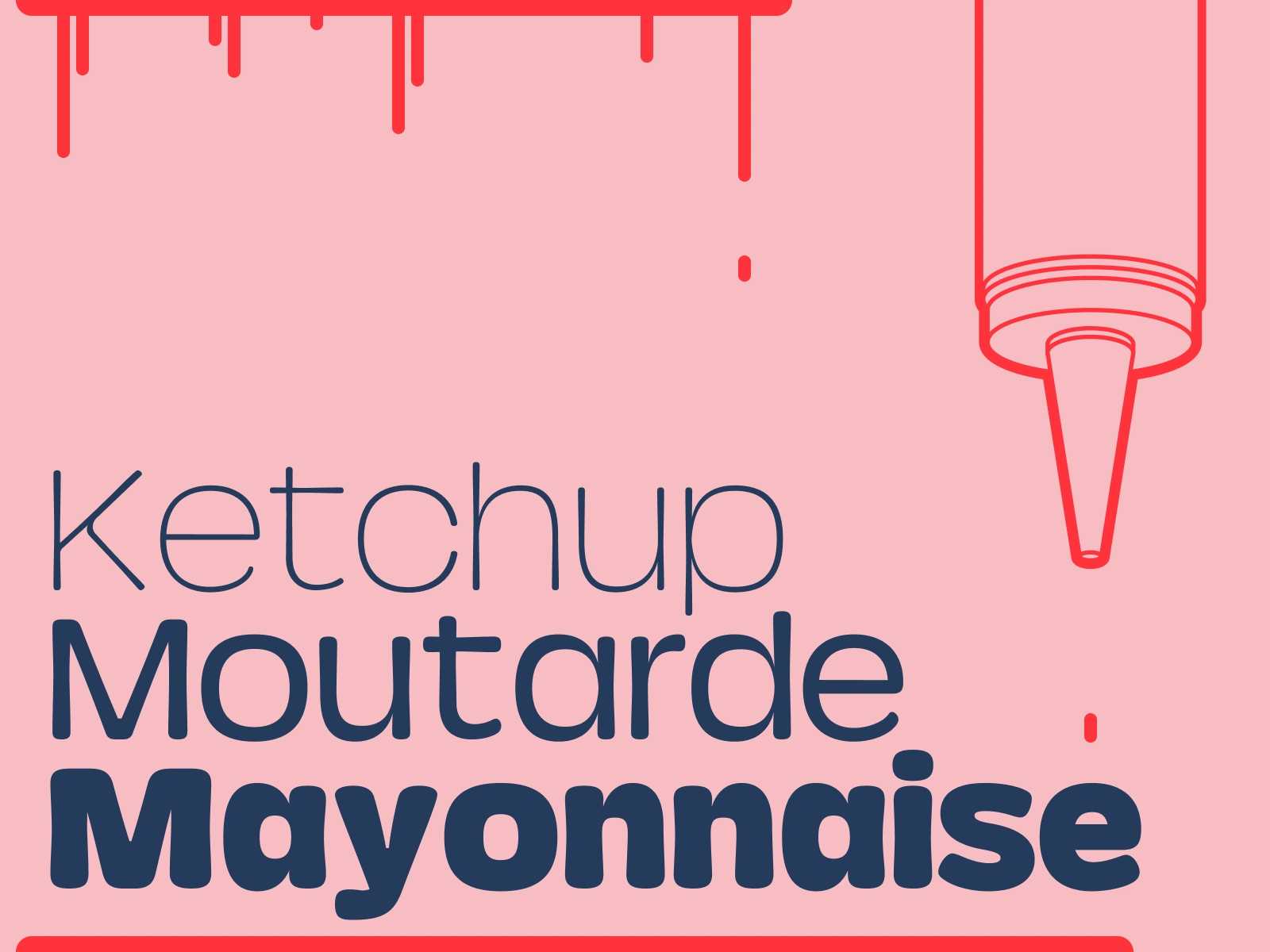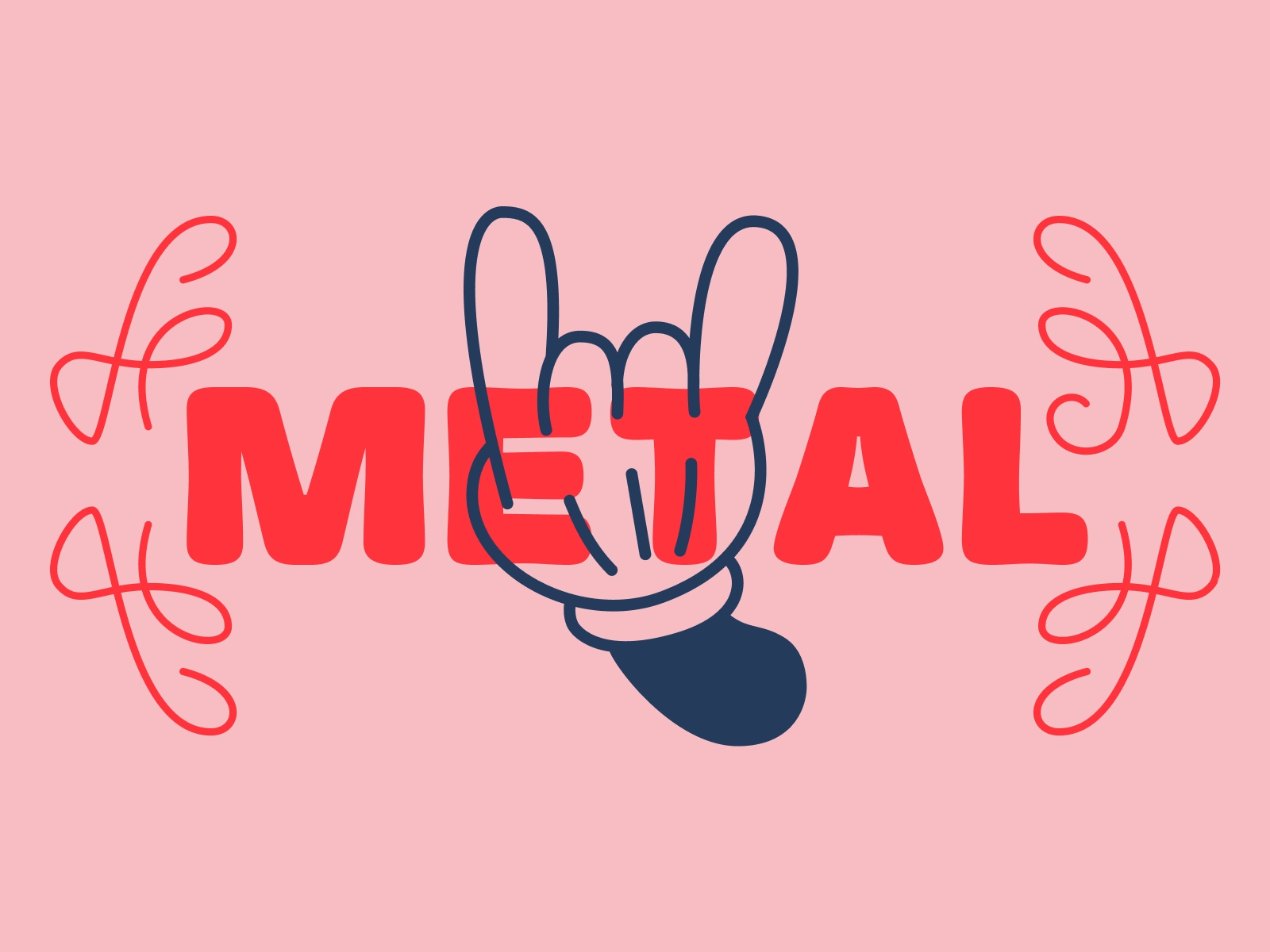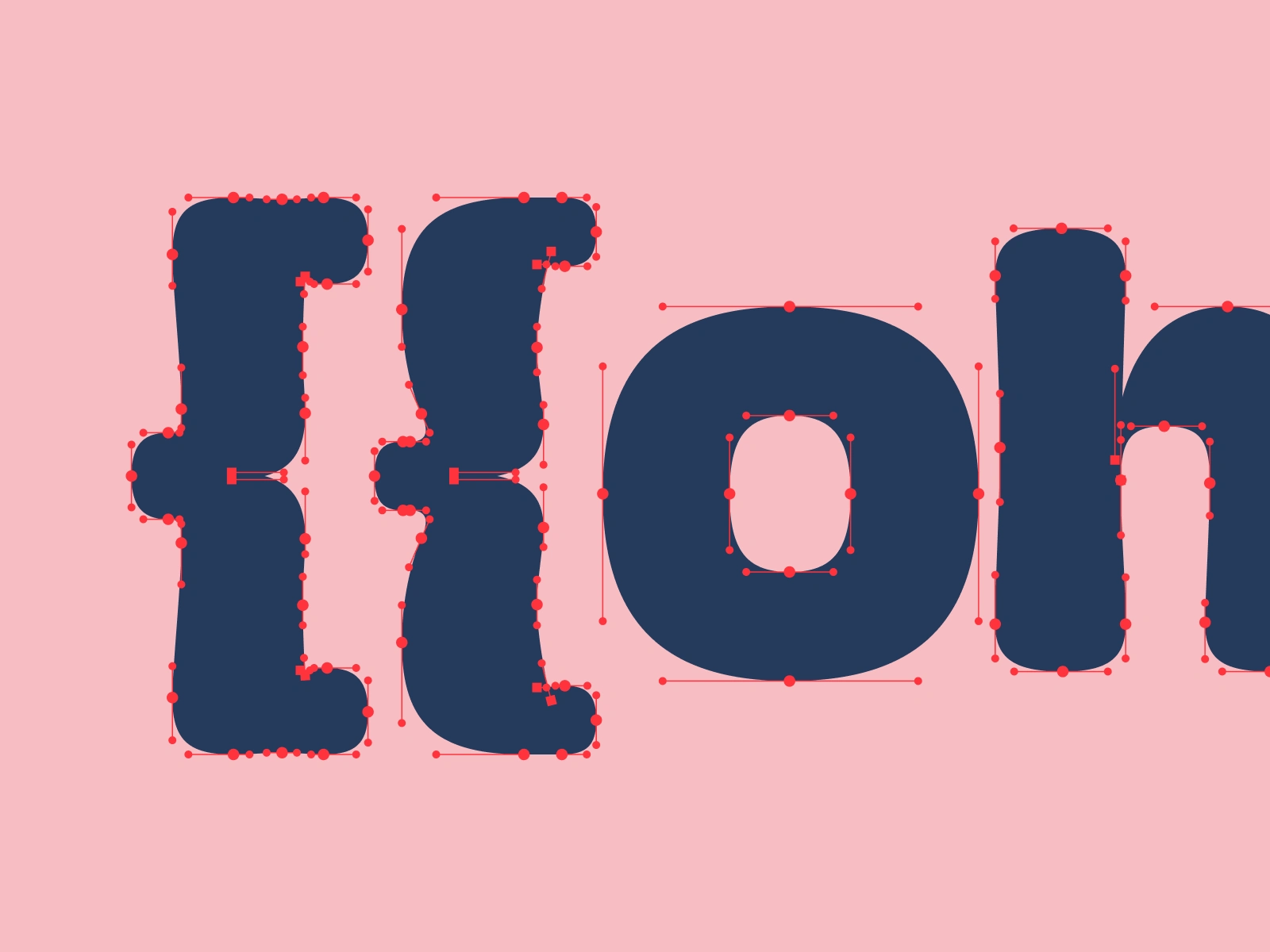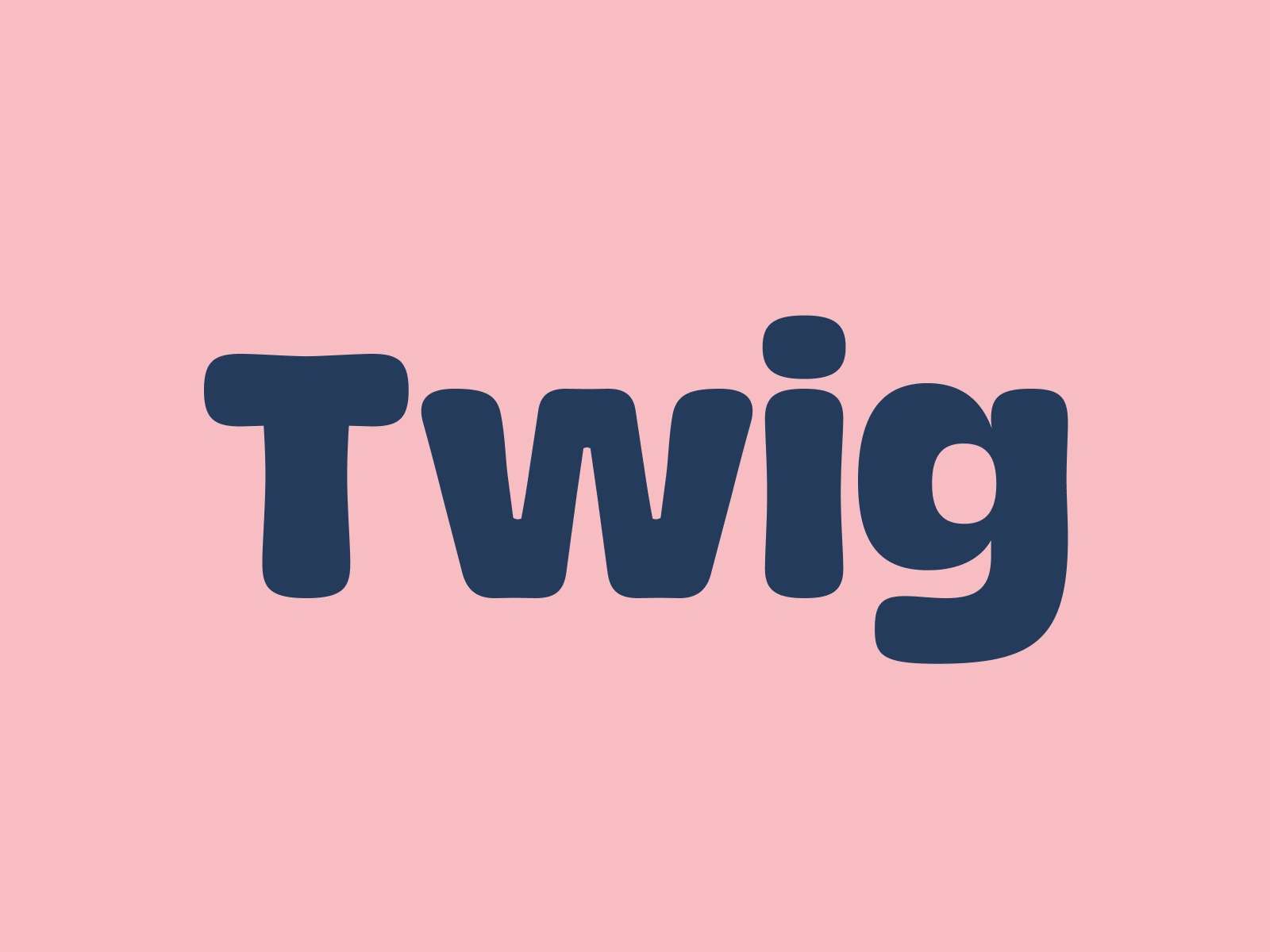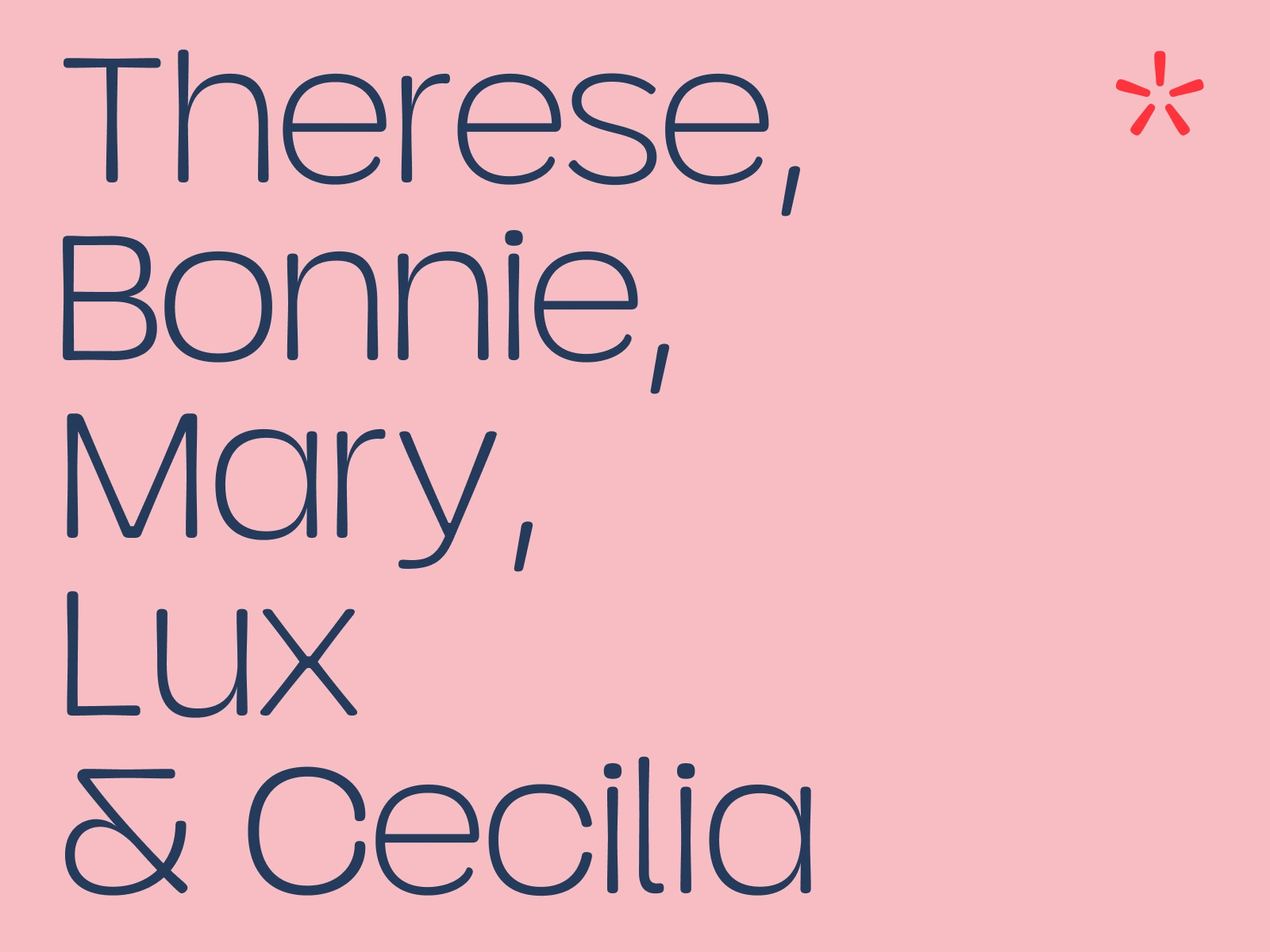
Twig Font Family • Coming soon!
Twig • Upcoming font family
Generous as a pasta plate and joyful as a Welsh corgi during a sugar rush: this is Twig! Be like water my friend, Twig can drop at any time…
Some specs
5 styles: Thin, Light, Regular, SemiBold & Bold
Script: Latin
Language support: 254 languages (2.7 billion speakers)
Twig font family with 5 styles, variable font, 254 languages support.